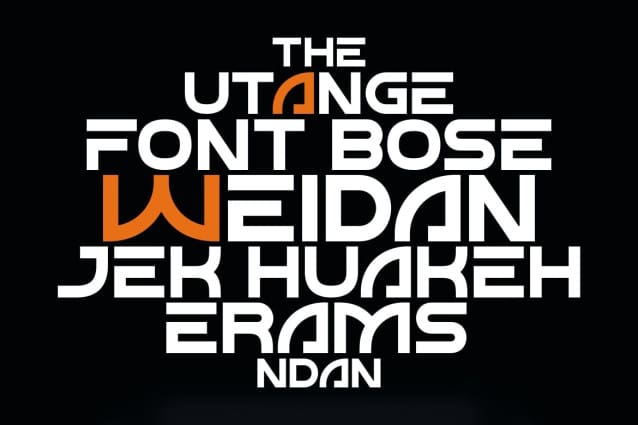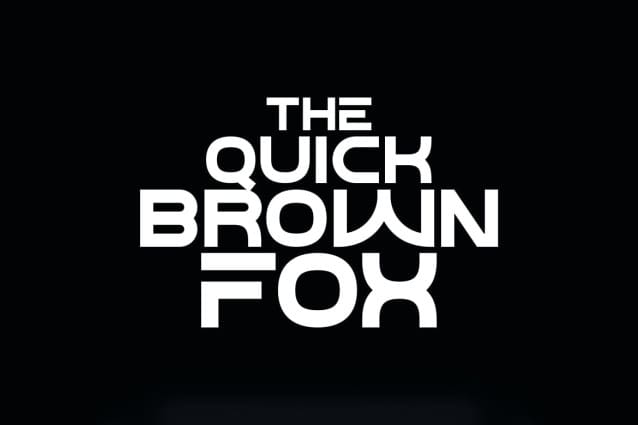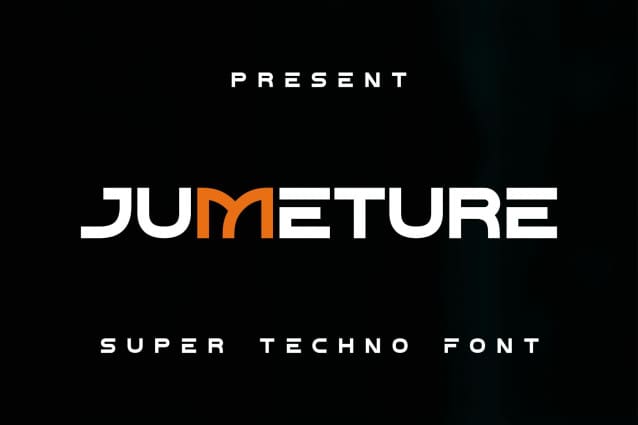
Jumeture Font
Jumeture Font, a futuristic font that embodies strength and courage. Jumeture is expertly crafted with a solid touch that exudes a technological aura, showcasing each written piece with an undercurrent of advanced aesthetics. Impactful and robust, it puts the very essence of technological sophistication at your fingertips, transforming every task into an essential digital experience. Discover the resilience of the future, one character at a time with Jumeture.